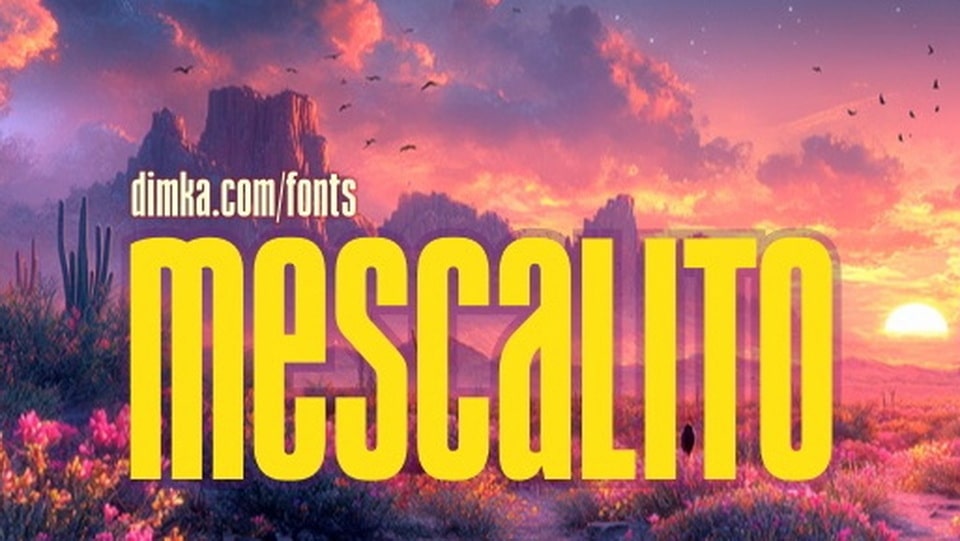
Download Mescalito font, a bold, ultra-condensed display sans-serif typeface with geometric shapes. Perfect for striking headlines and posters, it combines retro charm with modern versatility.
Designer: Dimka